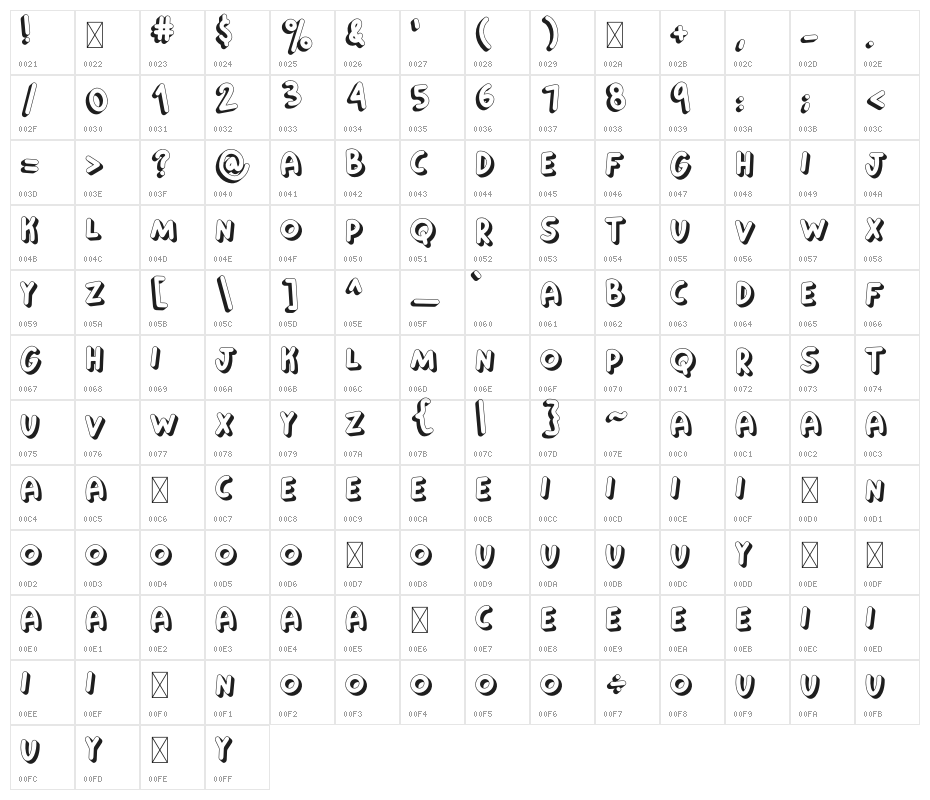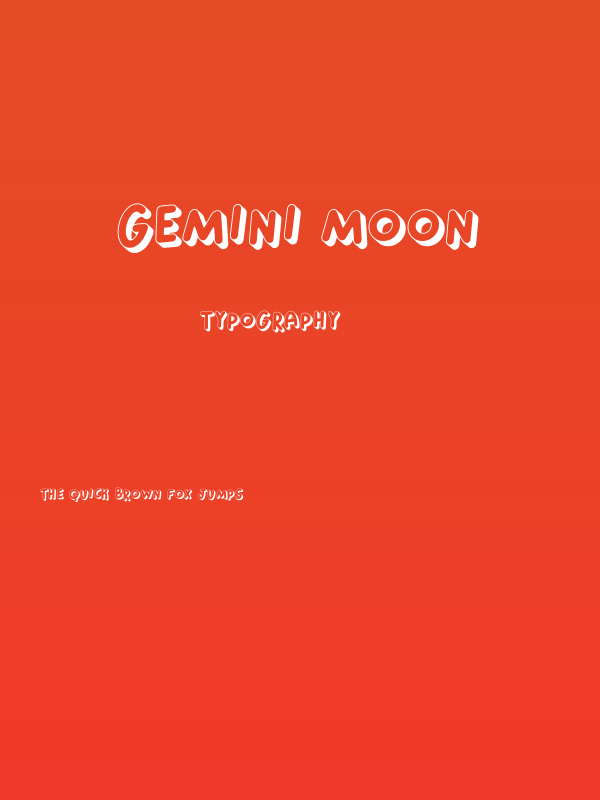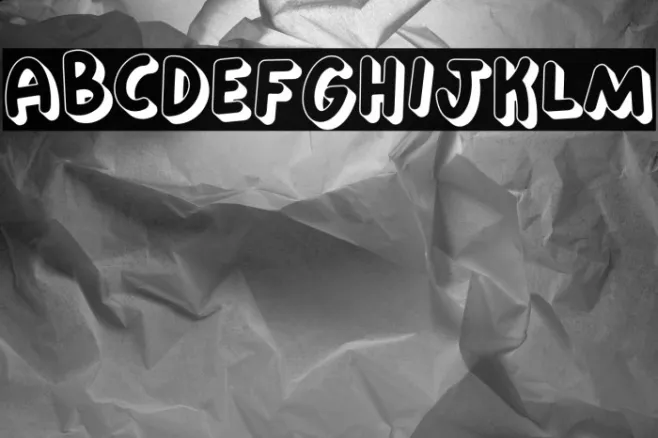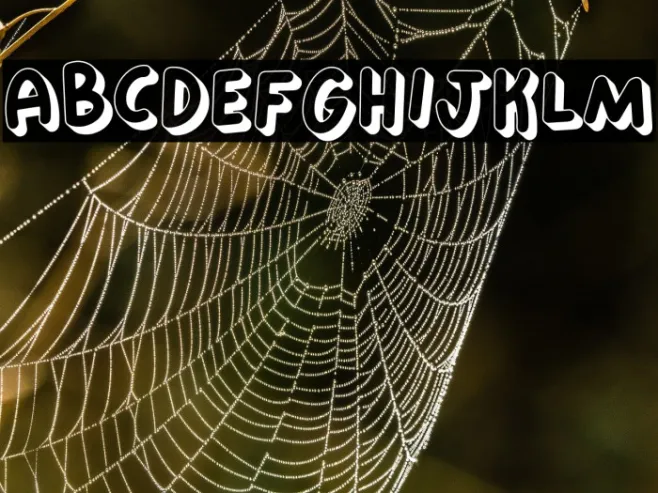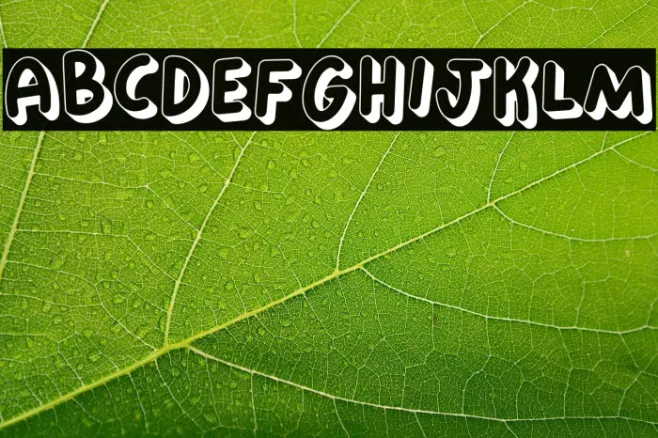
Gemini Moon Font
Gemini Moon Description
This playful and bold font features a three-dimensional effect with a shadow that gives it a lively and dynamic appearance. The letters are rounded and slightly inflated, reminiscent of bubble letters, which adds a fun and whimsical touch. The uppercase and lowercase letters maintain consistent styling, ensuring readability while still being visually engaging. The numbers and special characters follow the same design principles, making them cohesive with the alphabet. This font is perfect for projects that require a cheerful and energetic vibe, such as children's books, party invitations, or playful branding.
GEMINI-MOON UPPERCASE
GEMINI-MOON LOWERCASE
GEMINI-MOON OTHER CHARS
| Proposed Projects | Ideal for children's books, party invitations, playful branding, and any project needing a fun, energetic vibe. |